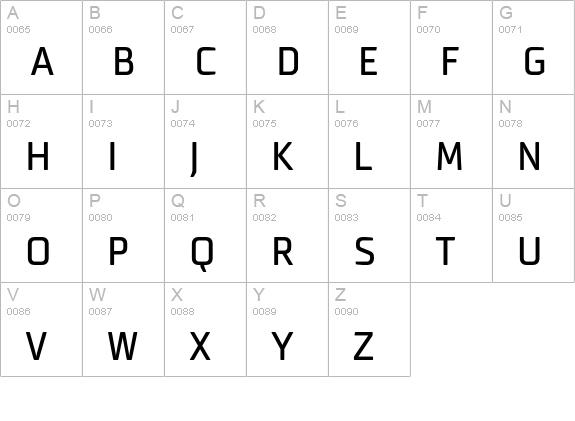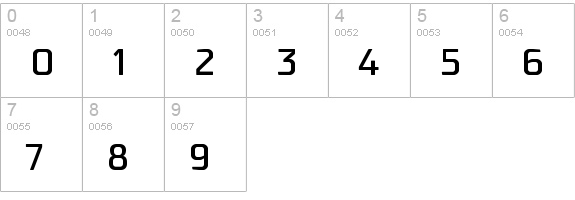
Maza Font Details
Introducing Maza font, a sleek and modern typeface that exudes elegance and sophistication. With its clean lines and unique design, Maza is perfect for a wide range of projects, from branding to editorial design. This versatile font is sure to make your text stand out with its contemporary style. What's even better is that Maza font is available for free download at FontsMarket.com. Yes, you read that right - this high-quality font can be yours at no cost at all. Don't miss out on the opportunity to elevate your designs with Maza font today!